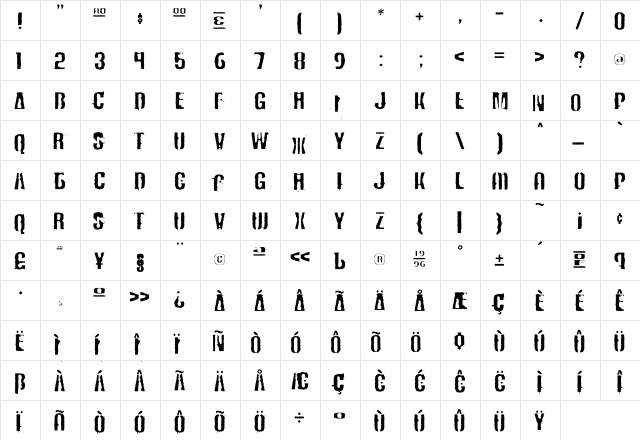
MagyarPosta Thin
Design Context for MagyarPosta Typeface
MagyarPosta takes a measured approach to typography — its balanced proportions and neutral character make it a reliable workhorse for both digital and print work. Its slender proportions lend an understated elegance to any composition.